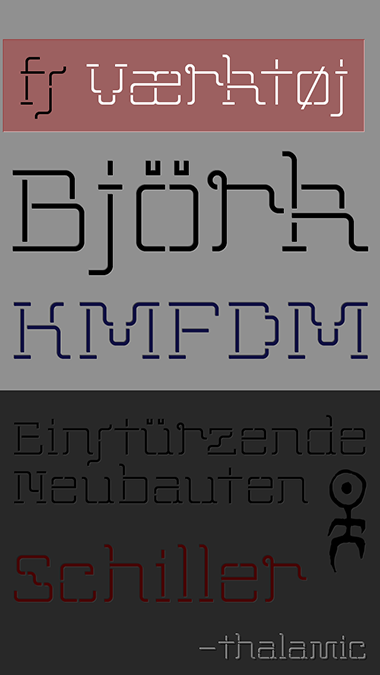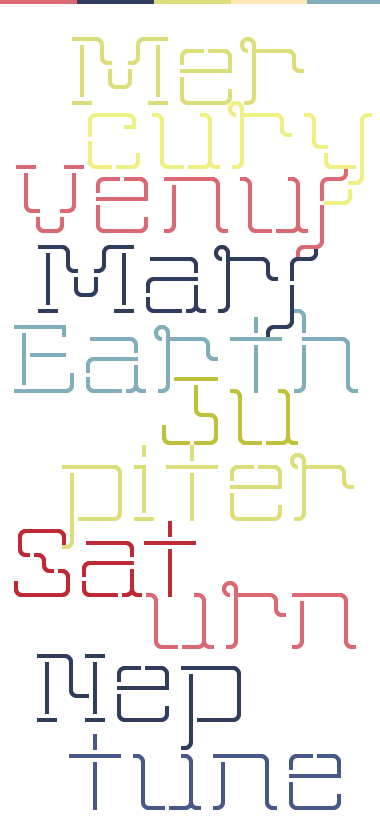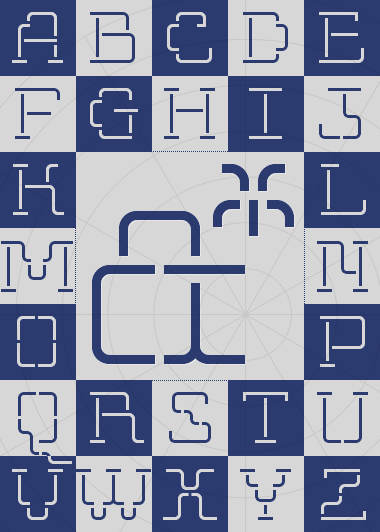
• Openly inspired by (but not a ripoff of) the brand identity of Høejmark Cycles.
Precious!
Nice, Danish words are always pleasing ;) 10/10
Good work, It reminds me of Aeolien's great fonts.
@Thalamic : great work, love the cold feel but with some kind of baroque twist. I also love the quite different brand identity which inspired you (this "4" is to die for!)
This made also me think to an older work of yours fs easy too
Such a delightfully idiosyncratic design - very sinuous. 10/10
Very different, distinctive. It reminds me of walls with openings and steps, a definite "like" for the curvy look. 10/10
Fantastic.
Great font, great sample, but... wasn't Eatrh before Mars?
Yes. Earth before Mars. Still. The sample doesn't list them in strict order. Notice the omission of the seventh planet, splitting it up in two lines was an unfortunate wordplay. Hence avoided.
You could have written Ura-nus or Uran-us, and no harm would be done ;)
Very stylish :)
Congratulations! FontStruct Staff have deemed your FontStruction worthy of special mention. “fs Værktøj” is now a Top Pick.
Love the asterisk
Clean linework!